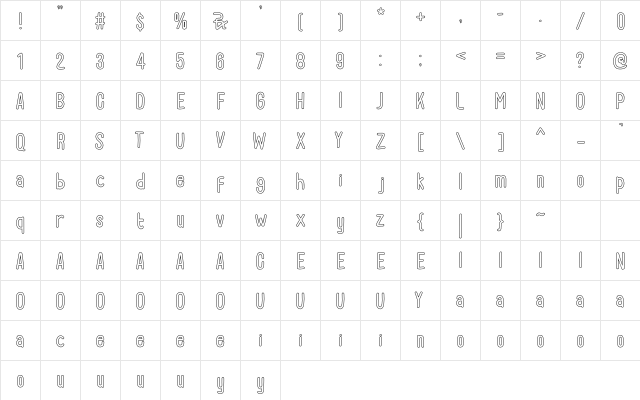
COCO MILK Regular
Design Context for COCO MILK Typeface
COCO MILK takes a measured approach to typography — its balanced proportions and neutral character make it a reliable workhorse for both digital and print work.